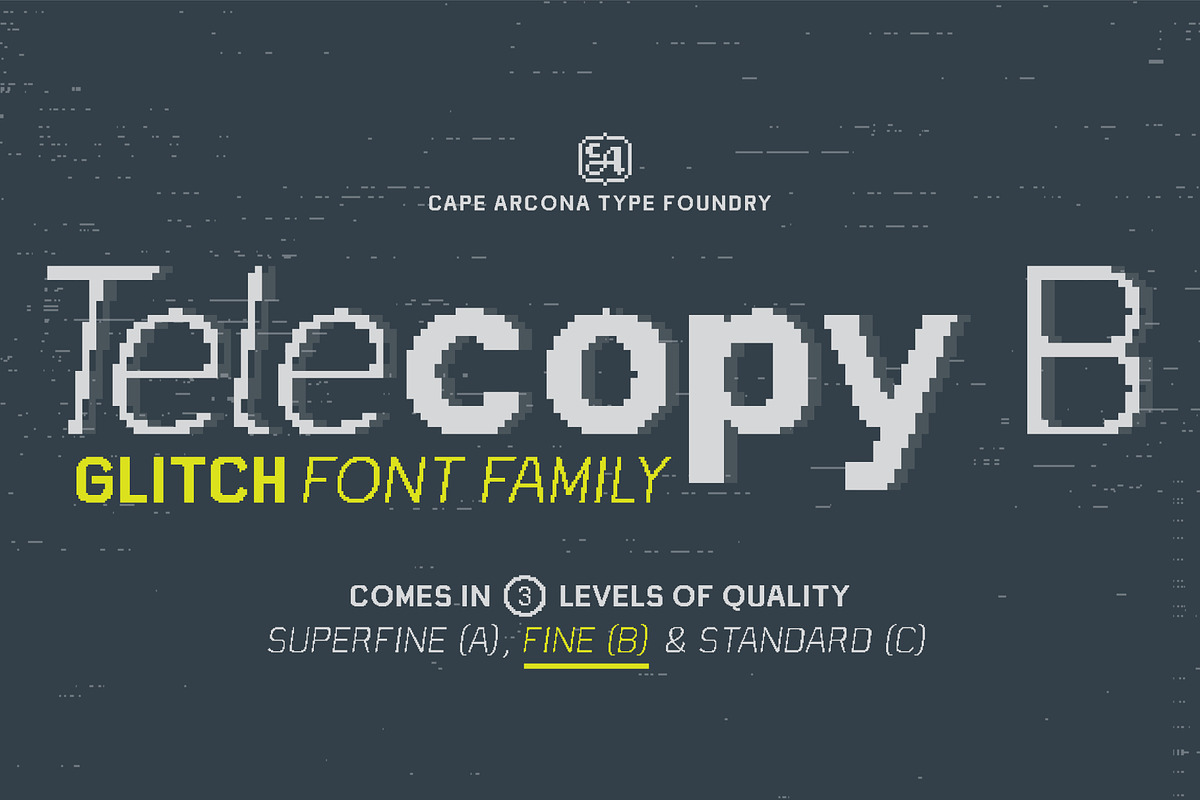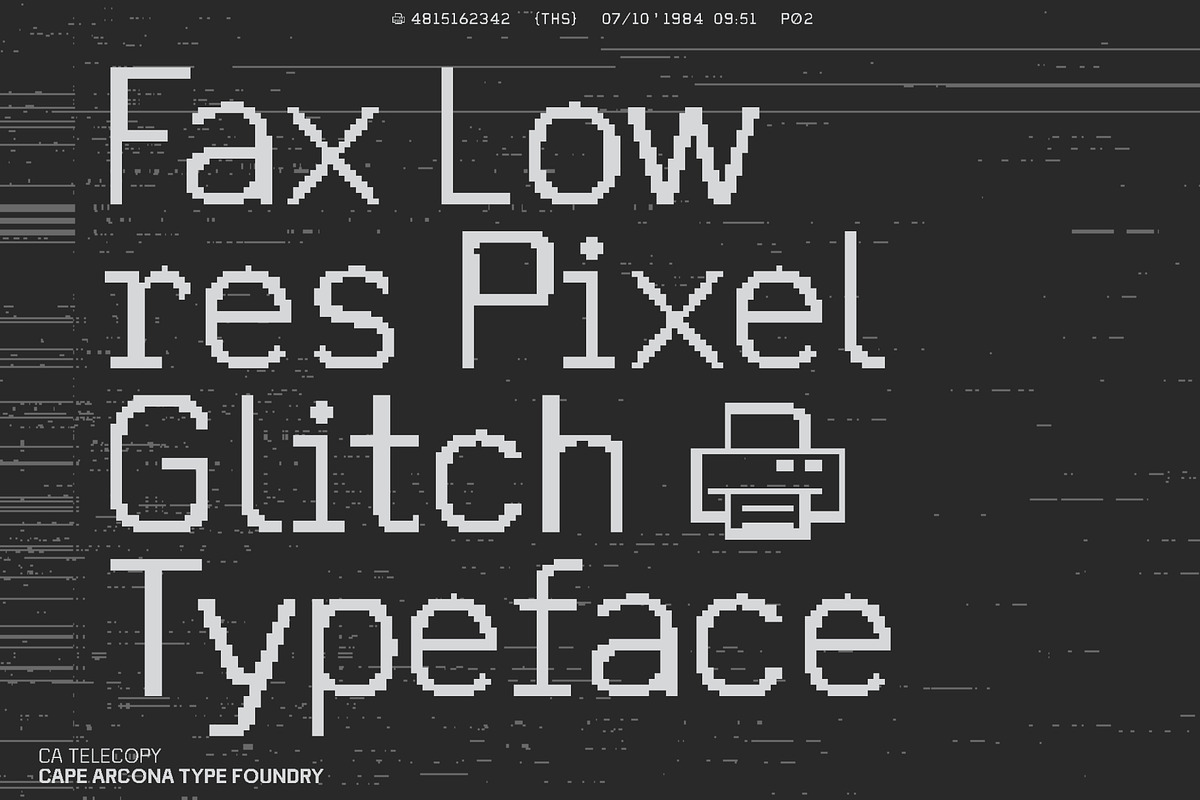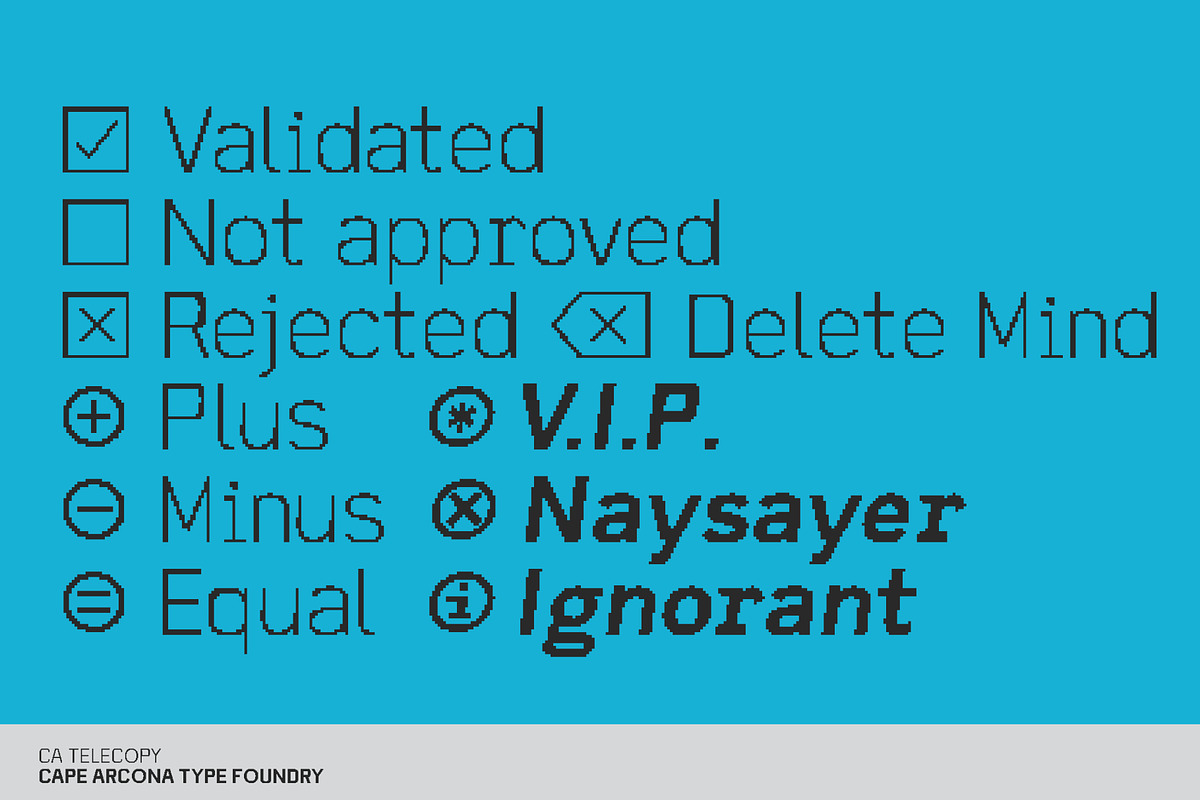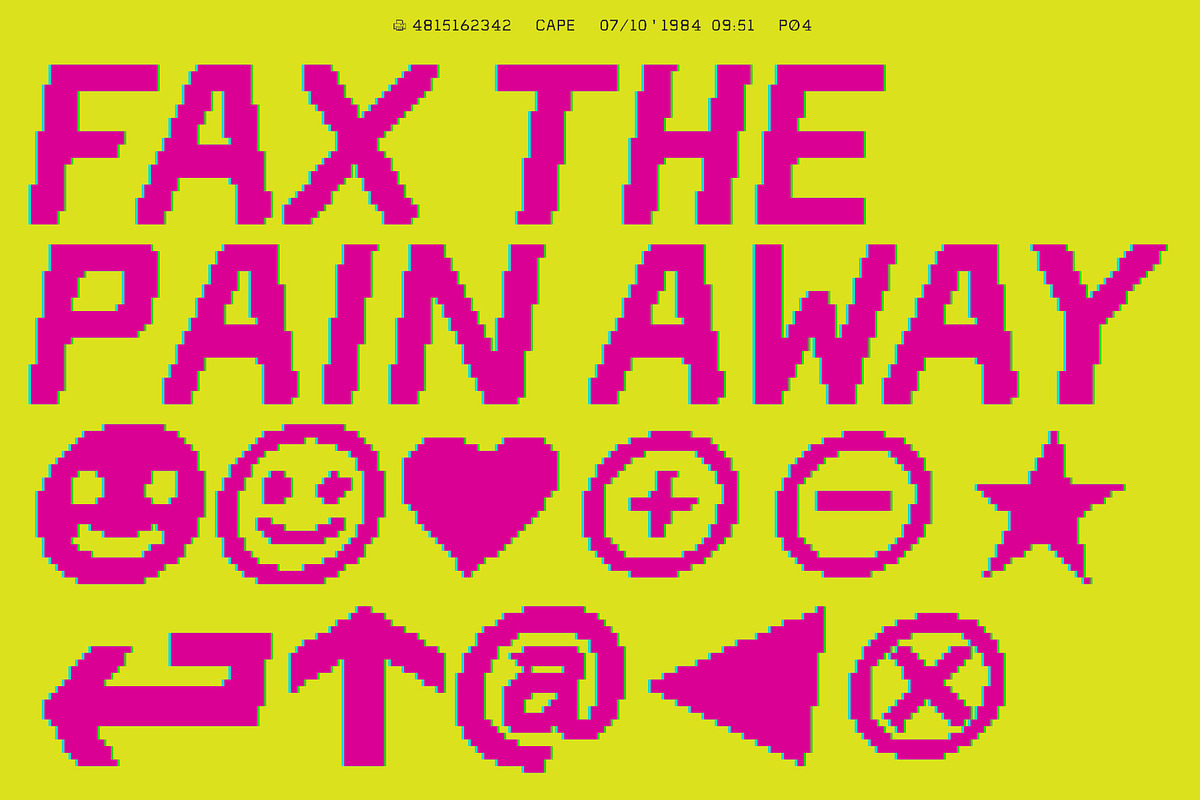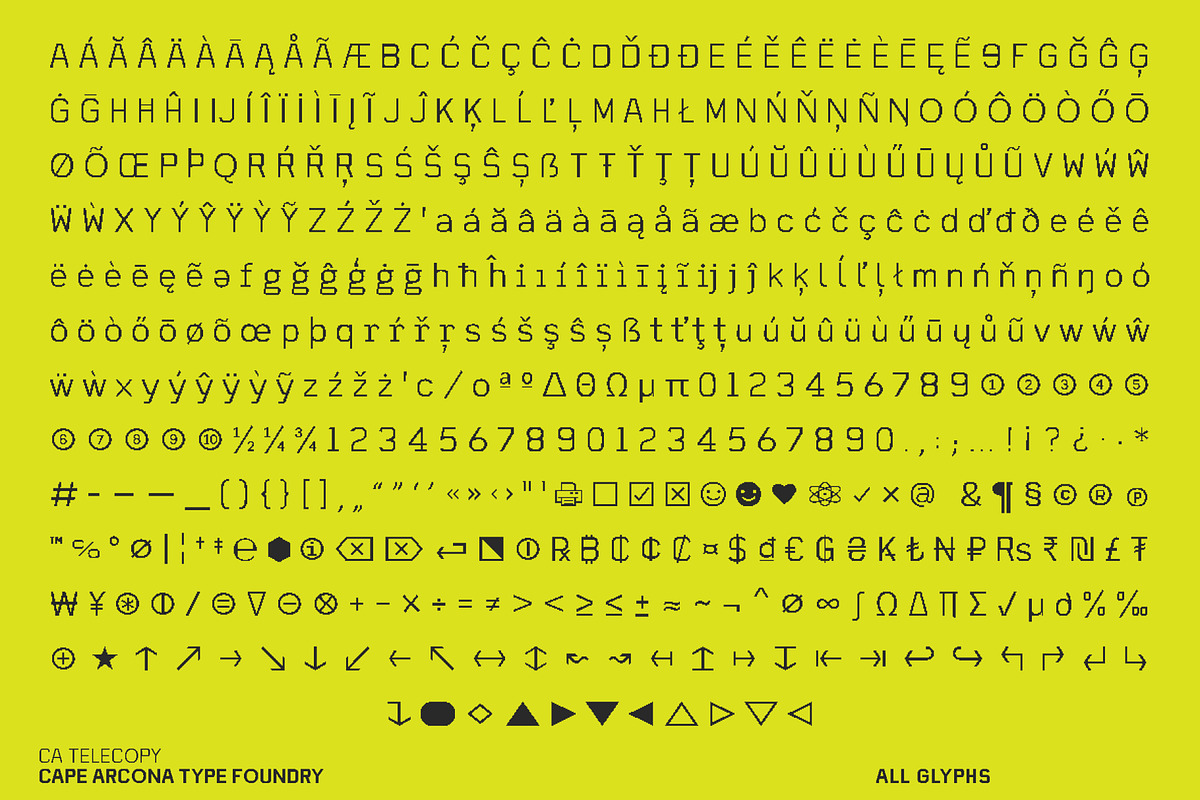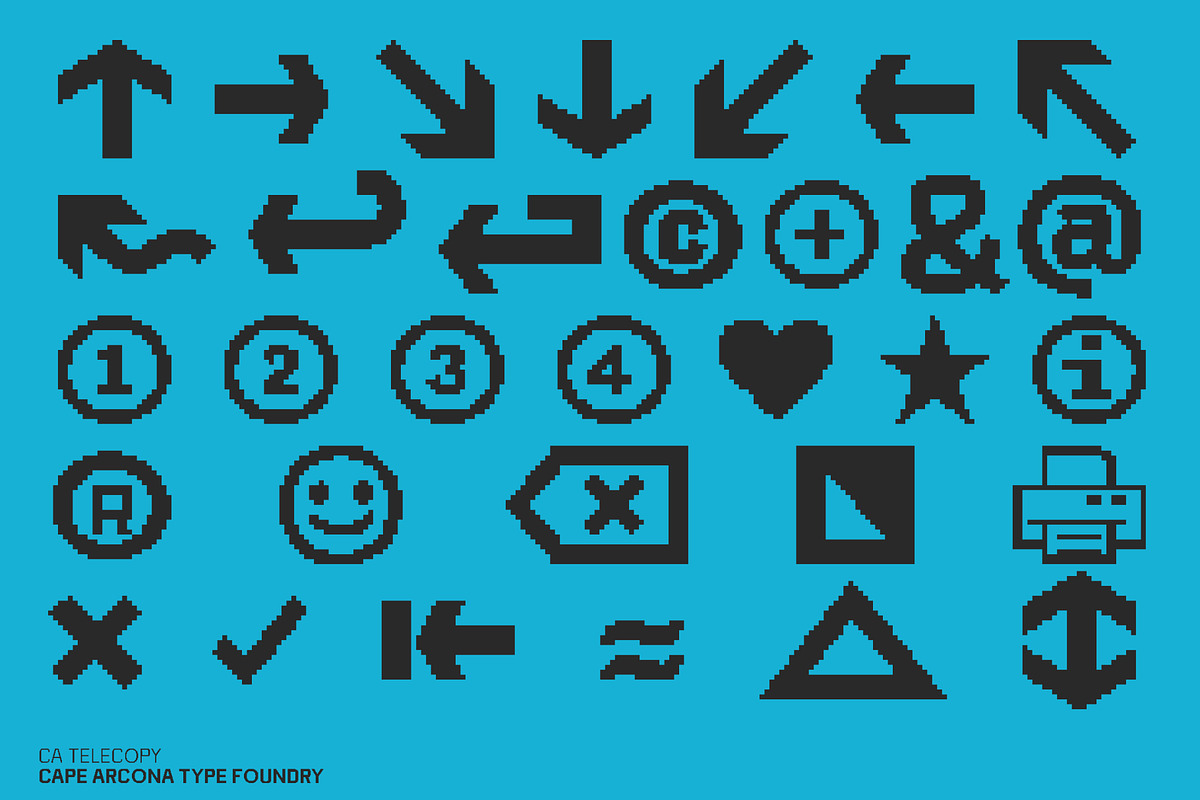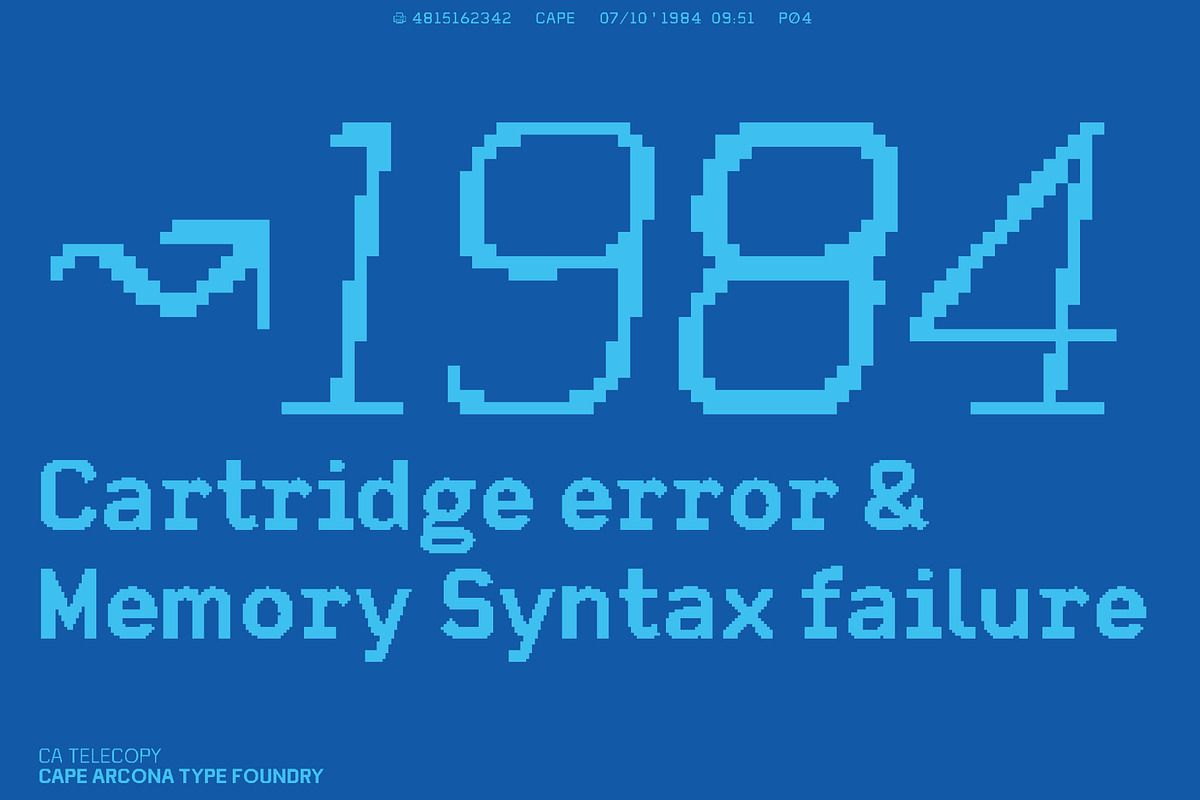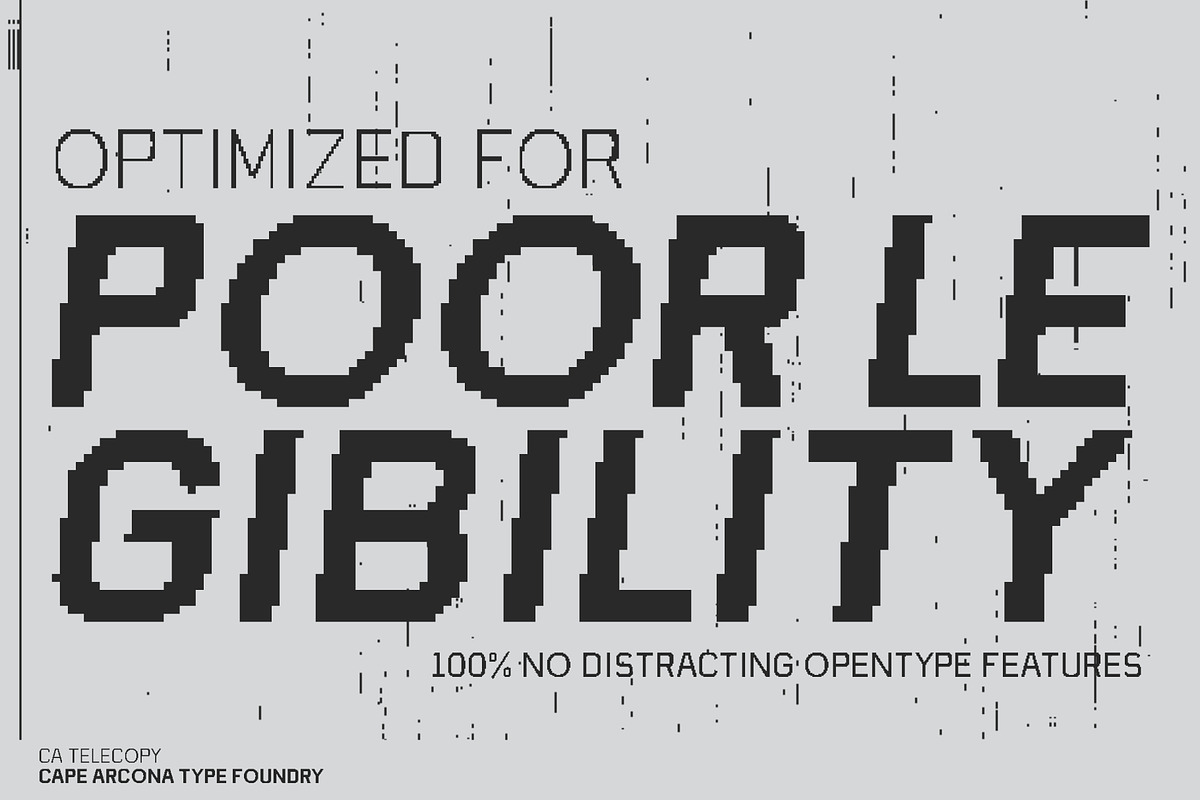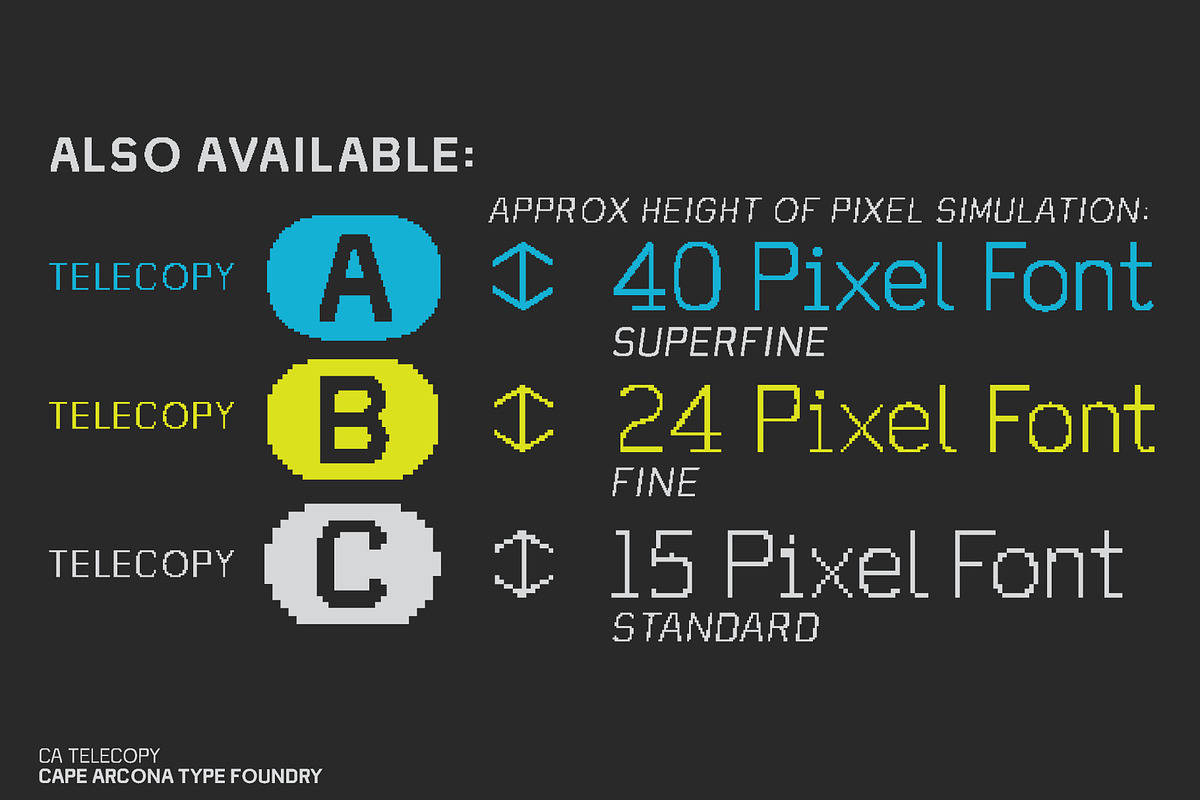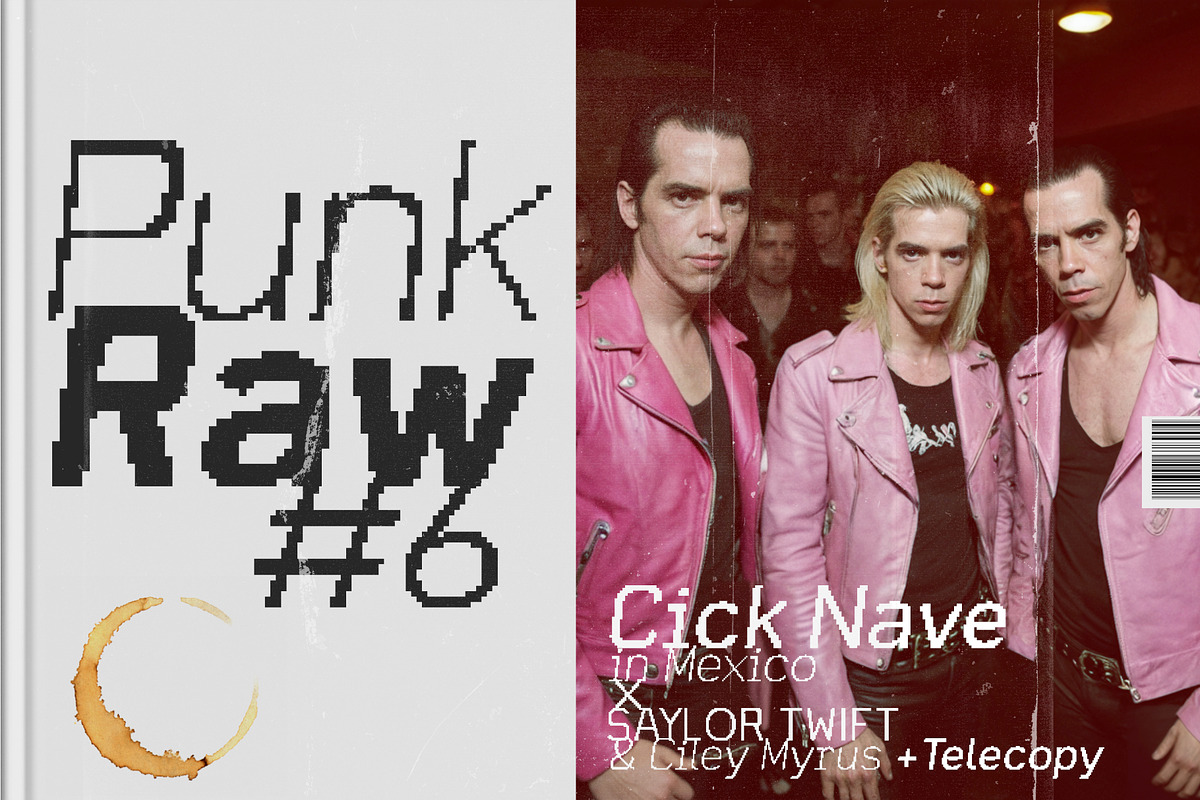
CA Telecopy B
Introducing CA Telecopy, a unique typeface that embraces the aesthetic of digital imperfection and nostalgic pixelation. Inspired by the crude typefaces of early 90's fax machines and low-resolution monitors, CA Telecopy captures the essence of technological glitches and digital errors. This typeface transforms the typically undesirable qualities of bad hints and unclean type into a bold design statement.
Three different quality levels give you simulated pixel heights of 40, 24 and 15 — Telecopy A, B and C.
CA Telecopy's pixelated style evokes the charm of early digital communication, where text appeared grainy and distorted. Each character is a testament to the era of glitch art, where visual anomalies and artifacts create a striking visual impact. The design process behind CA Telecopy focused on intentionally creating "wrong" and "bad" forms, resulting in a typeface that revels in its own imperfections.
Available in light, regular, medium, and bold weights with three different levels of bad pixels CA Telecopy offers versatility for a variety of design needs. Its extensive character set ensures that it can handle any application, whether for print or the web. This font is perfect for projects that want to deliberately degrade designs and add a touch of retro digital chaos to your work. Rediscover the beauty of imperfection with CA Telecopy, where every glitch and pixelated edge tells a story of the digital past, especially the nostalgic era of the early '90s.